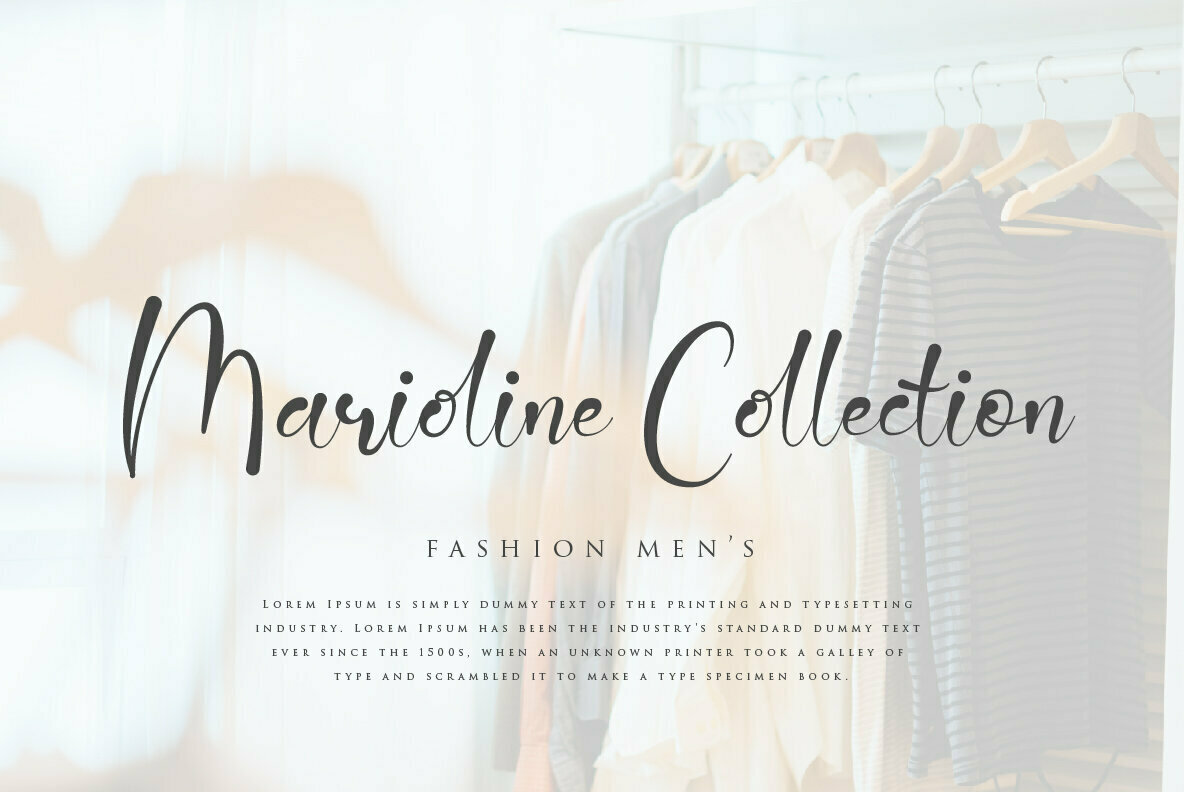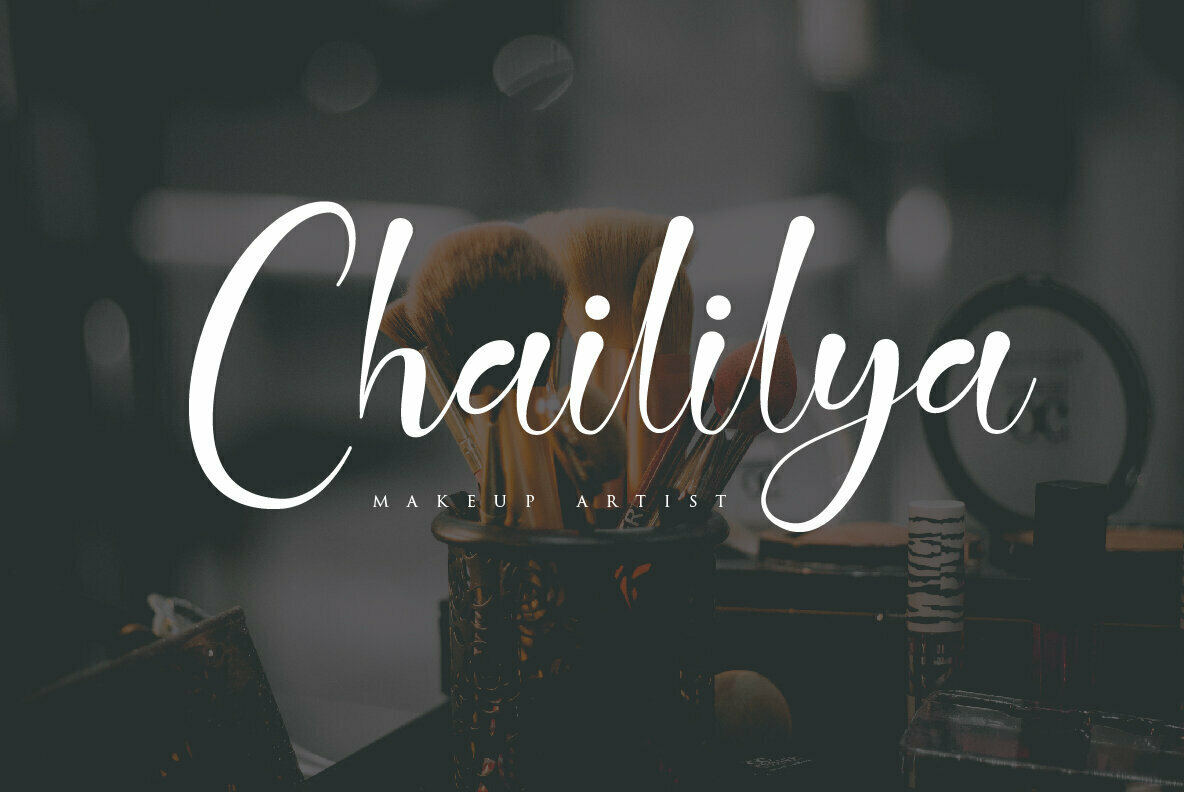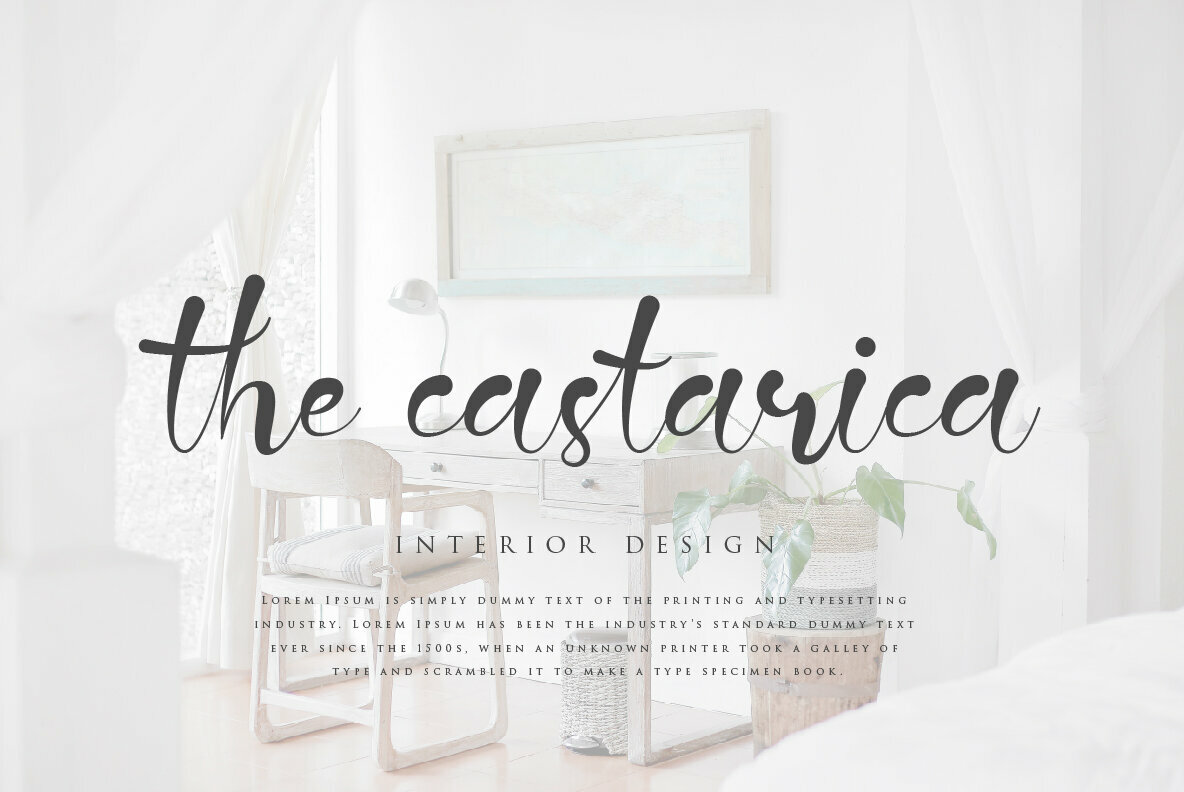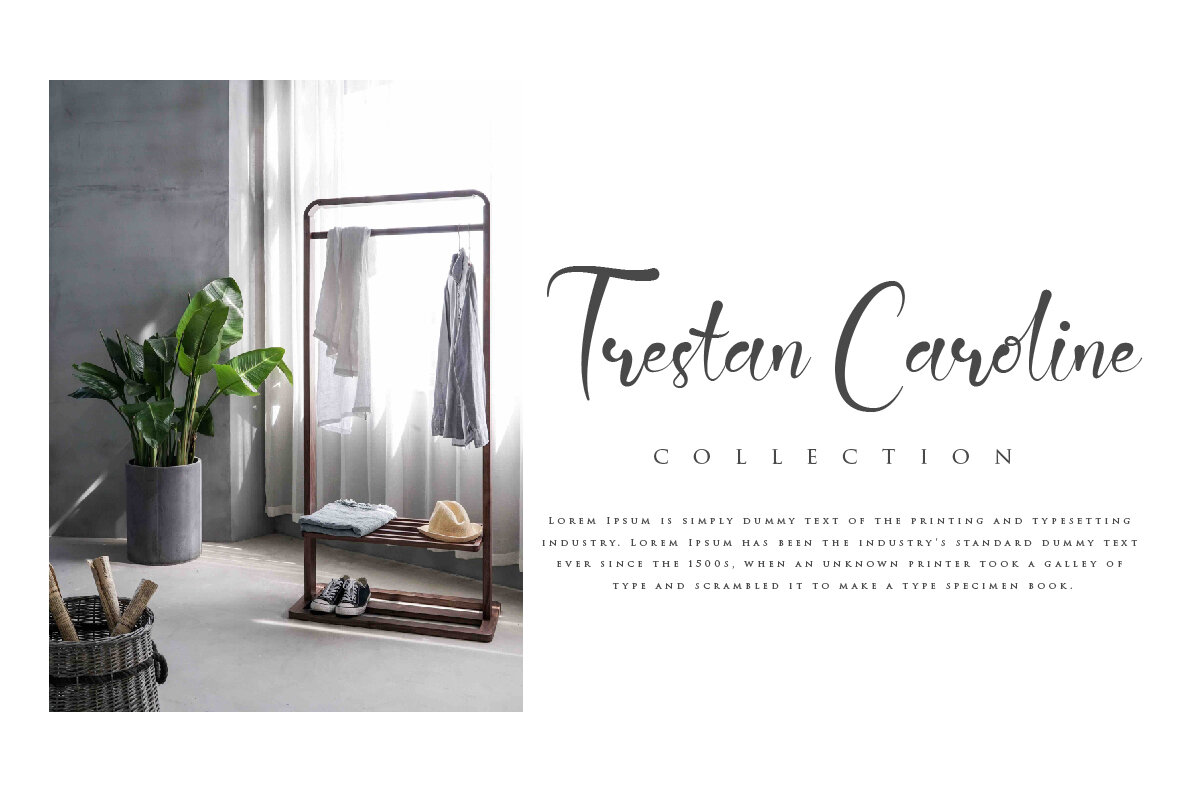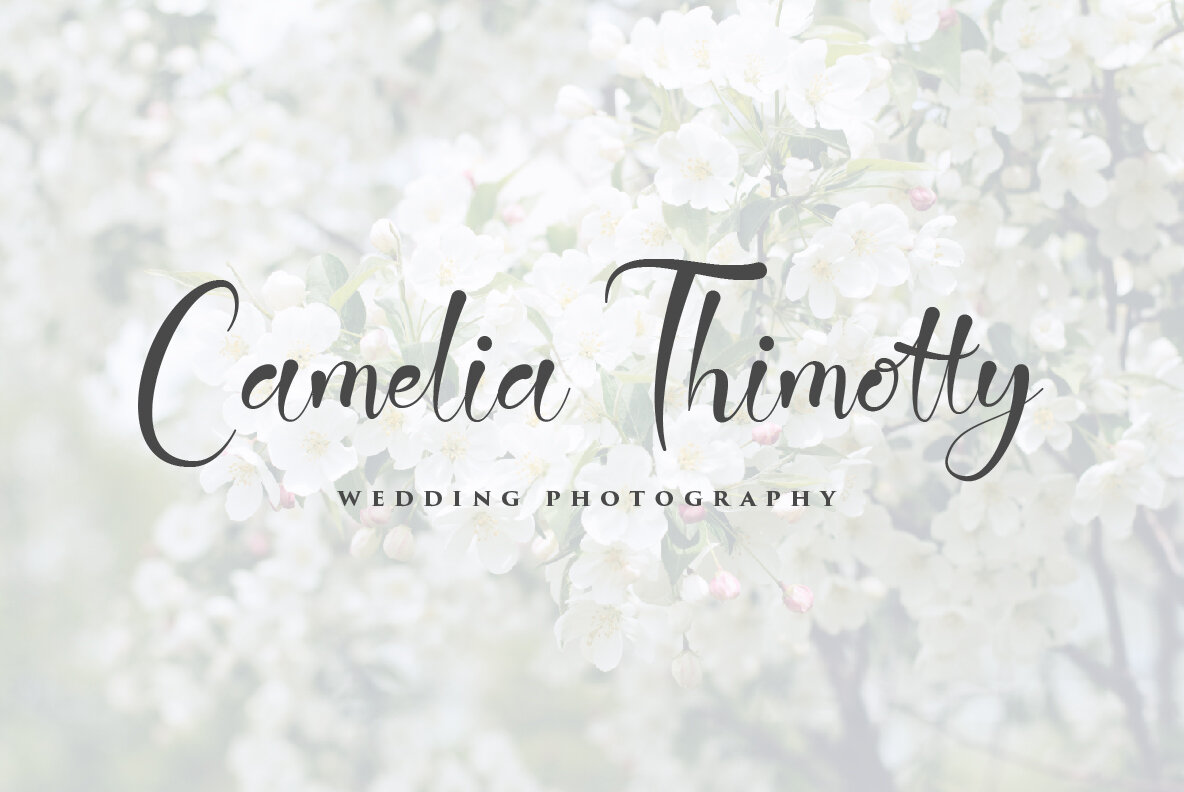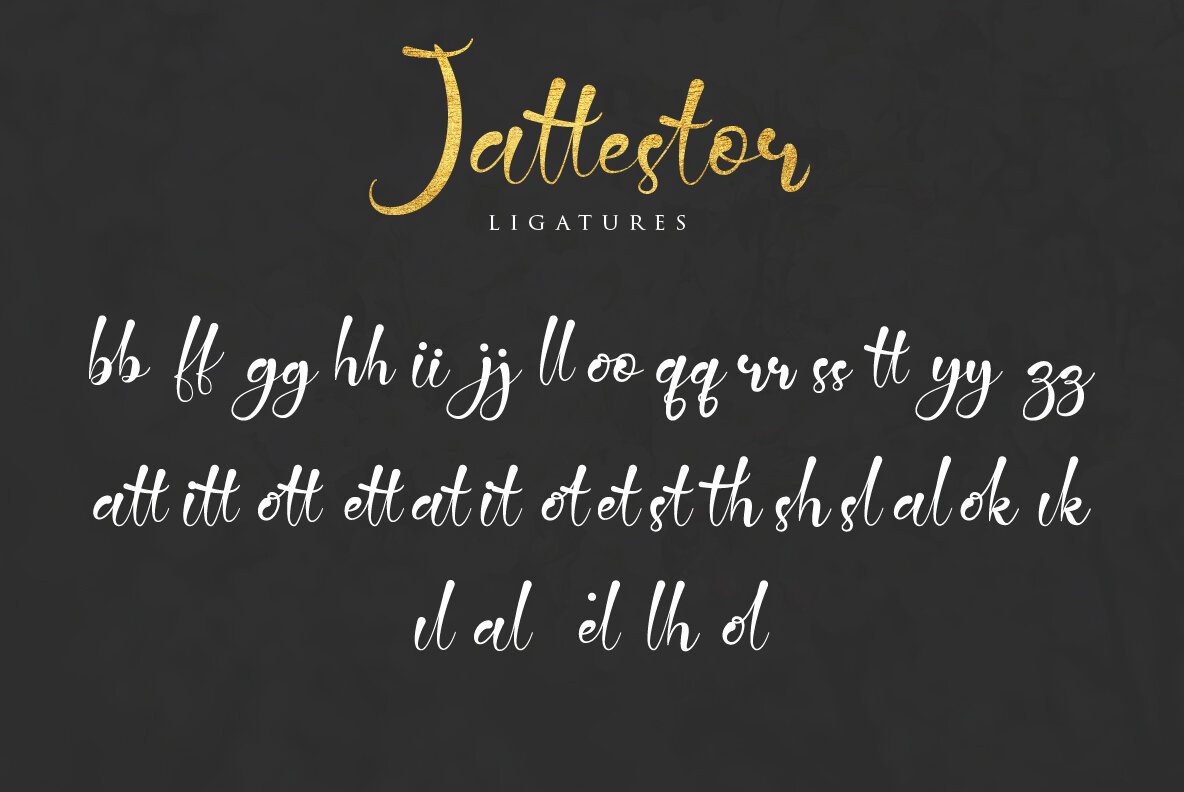
Jattestor Font
Jattestor
Jattestor, the latest offering from Sabrtype Studio, exemplifies a modern approach to calligraphy. This script font embodies simplicity and elegance, making it ideal for various creative applications. Features:Jattestor: Elegant Modern Calligraphy Typeface